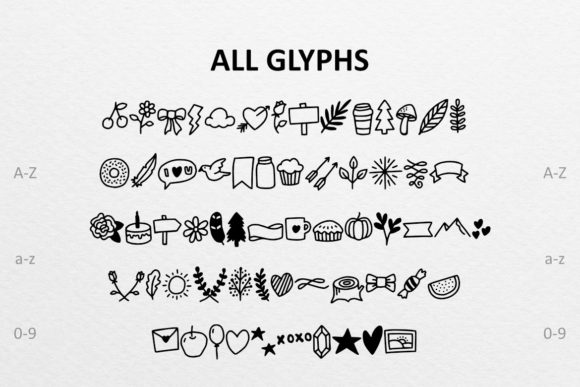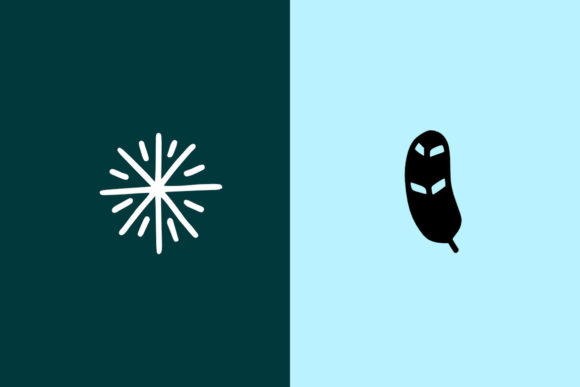
About Doodly Doodle Font
Doodly Doodle Dingbat is a charming and versatile dingbats font that brings a playful and artistic touch to your creative projects. With its collection of unique doodle-inspired glyphs, this font is perfect for various applications, including DIY projects, logos, ornaments, and more.
The hand-drawn style of Doodly Doodle Dingbat adds a whimsical and personalized feel to your designs. Each glyph is intricately crafted with attention to detail, making them visually appealing and full of character. Whether you’re looking to enhance your handwritten notes, create custom logos, or add decorative elements to your designs, this font provides a wide range of options.
Doodly Doodle Dingbat offers a diverse set of doodle-inspired glyphs that can be used to accentuate your writing or add decorative elements to your projects. From cute doodles of animals, flowers, and objects to intricate patterns and ornaments, this font provides a wealth of creative possibilities. By simply typing the corresponding letters or characters, you can easily access and incorporate these doodles into your designs.
This font is particularly well-suited for DIY projects, allowing you to create custom artwork, greeting cards, invitations, and more. The unique and hand-drawn nature of the glyphs adds an authentic and personal touch to your DIY creations. Whether you’re designing for special occasions, scrapbooking, or crafting, Doodly Doodle Dingbat offers a wide range of doodles to enhance your projects.
Logos and branding can also benefit from the playful and stylish nature of Doodly Doodle Dingbat. By incorporating these doodle-inspired elements into your logo design, you can create a memorable and visually appealing brand identity. The versatility of this font allows you to adapt the doodles to fit your brand’s personality and style.
Additionally, Doodly Doodle Dingbat can be used to add decorative accents and ornaments to your designs. Whether you’re creating posters, invitations, packaging, or any other creative project, these doodles can serve as eye-catching embellishments that elevate your overall composition.
In summary, Doodly Doodle Dingbat is a versatile dingbats font that offers a wide range of doodle-inspired glyphs for creative projects. Whether you’re working on DIY projects, logos, ornaments, or other design applications, this font adds a stylish and cute accent to your writing. With its playful and hand-drawn nature, Doodly Doodle Dingbat brings a unique charm to your creations and allows you to personalize your designs with ease.